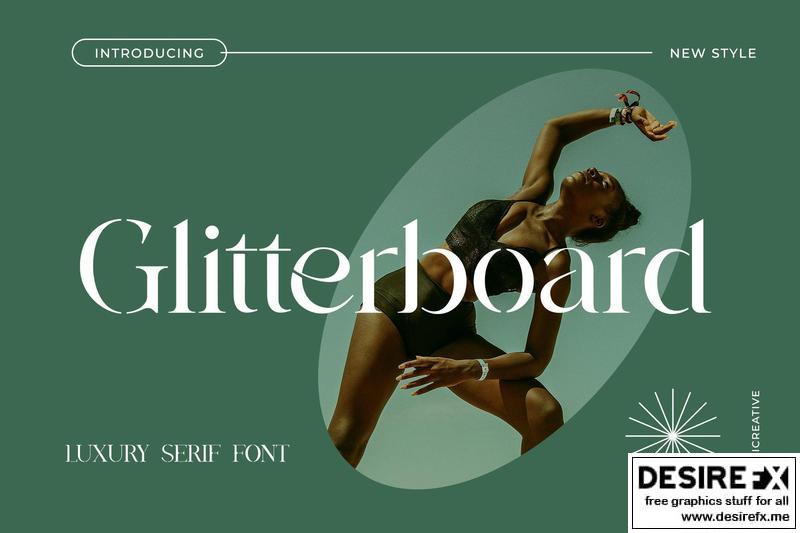
Introducing our new product the name is Glitteboard Luxury Serif Font. Modern Serif font that feels beautiful classy, elegant, and modern. This font is ideally suited for a wide variety of projects, such as signature, stationery, logo, wedding, typography quotes, magazine or book covers, website headers, clothing, branding, packaging design, and more. Also, fashion-related branding or editorial design displays both masculine and feminine qualities.
Supported Characters:
- ABCDEFoHIJÁLMNOPQRSTUVWXYZ
- abcdefghijklmnopqrstuvwxyz
- 0123456789
- !”#$&'()*+,-./:;=?@[]_{|} ¡¢«»¿
- ÀÁÂÃÄÅÇÈÉÊËÌÍÎÏÑÒÓÔÕÖØÙÚÛÜÝ
- àáâãäåçèéêëìíîïñòóôõöøùúûüÿ
- ĀāĂ㥹ĆćĈĊċČčĎďĒēĔĕĖėĘęĚěĜĞğĠġĤĨĩĪī
- ĬĭİıĴĹĽľŁłŃńŇňŌōŎŏŔŘřŚśŜŞşŠšŤ
- ťŨũŪūŬŭŮůŴŶŸŹźŻżŽžǫ
- ȦɢɪɴʀʏʙʜʟᴀᴄᴅᴇᴊᴋᴍᴏᴘᴛᴜᴠᴡᴢẀẂẄẼỲ